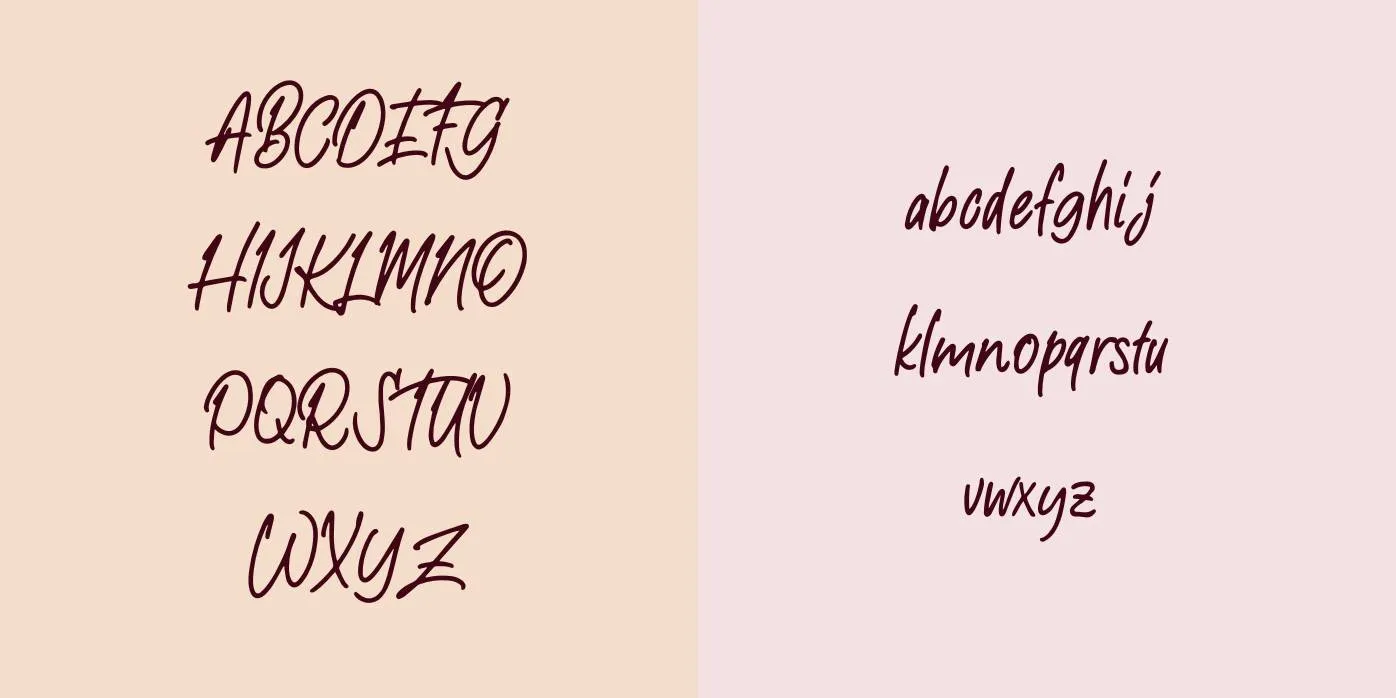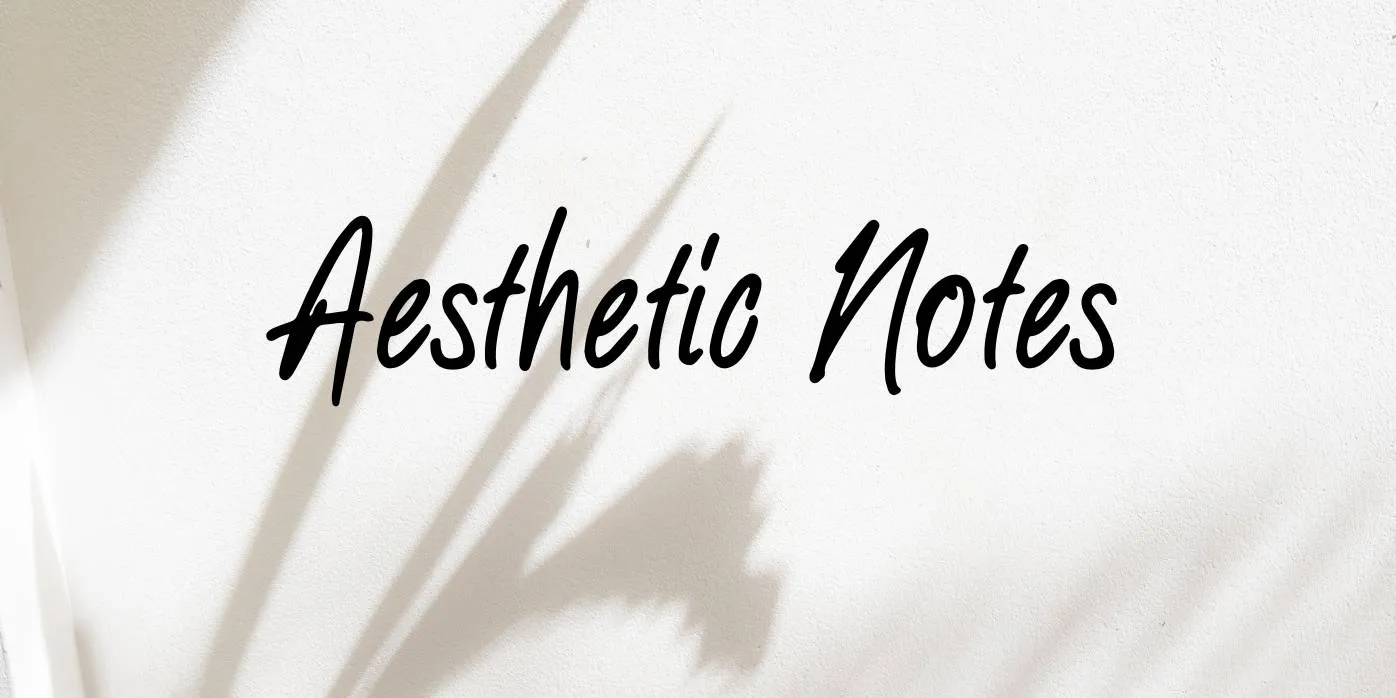
Aesthetic Notes Font
We can talk about this amazing font Aesthetic Notes Font. This handwritten font is designed by letterhead studios. It is a very clear handwritten font and can be used to design many different projects. It contains 251 characters, 252 glyphs, and 1000 units per Em.
The weight of the font is Semi-light and its width is semi-condensed. The writing style followed by this font is Italic. This stunning font gives your projects a very attractive look. Embedding rights are allowed for the permanent installation of this font.
Usage You can make so many different designs by using this font. It has so many characters, symbols general punctuations, mathematical operations, and much more. It can be used to make many different designs such as wedding invitations, greeting cards, and other invitation cards. Attractive headings and titles can also be made by using this font.
You can make wedding invitations, and greeting cards can also be designed by using this font. Attractive fashion magazine covers and book covers can be made by using this font. It is a perfect choice for making branding to attract others. Product packing can also be made by using this font.
Can I use Aesthetic notes for making Logos? Yes, many different types of attractive logos can be made by using this font. It is also suitable for making other projects like Wedding invitations, greeting cards, writing quotes, and much more.